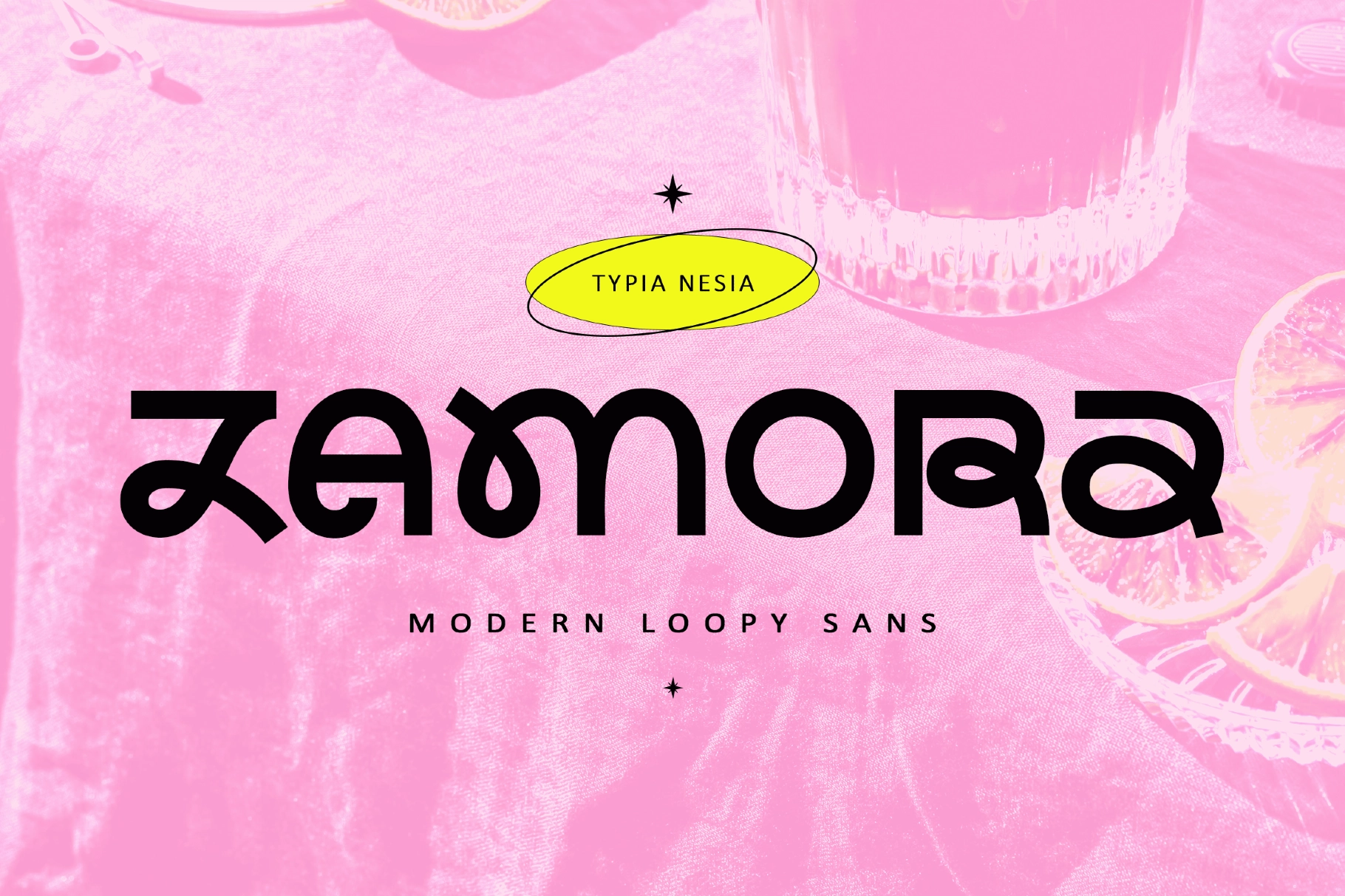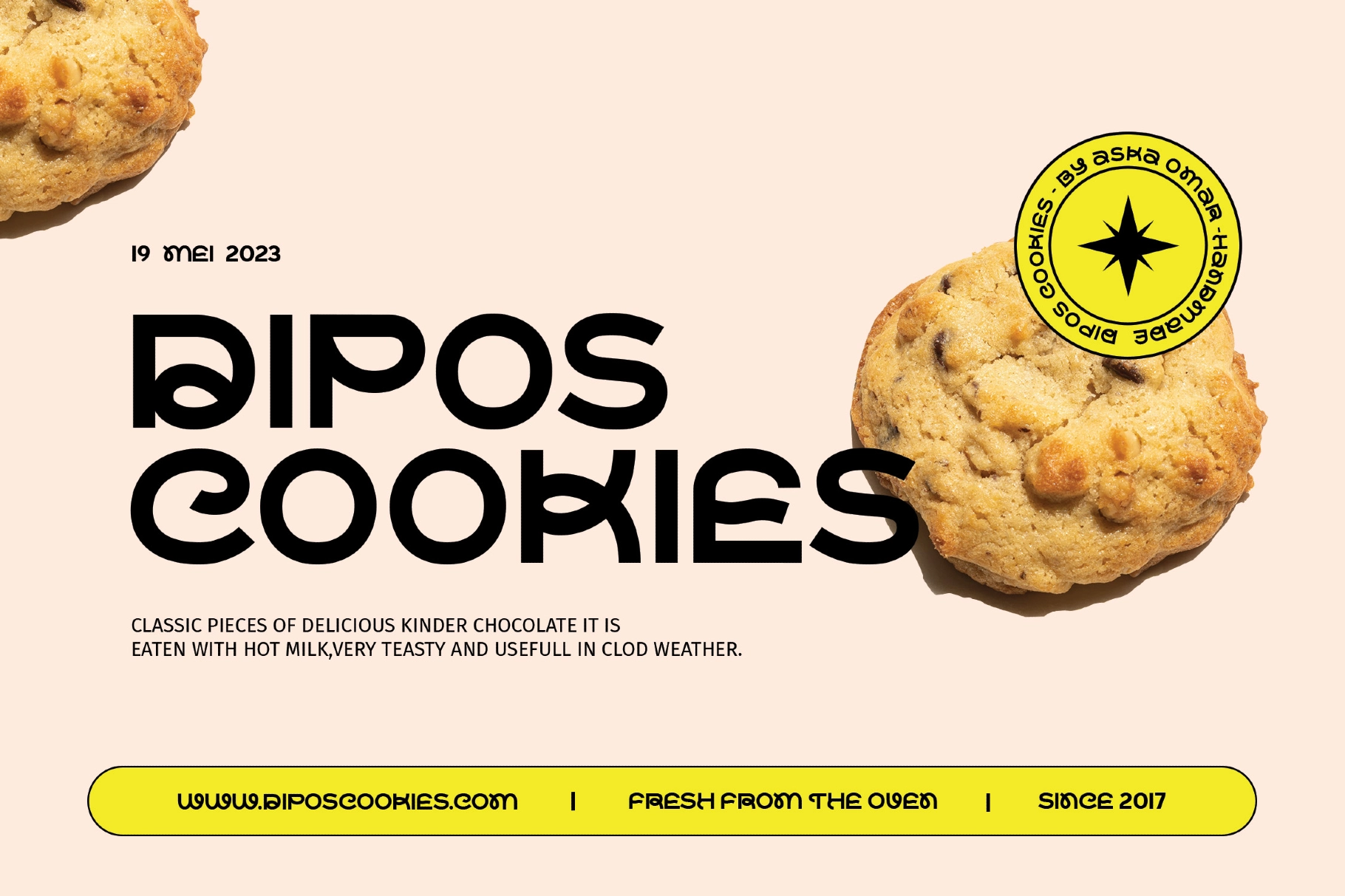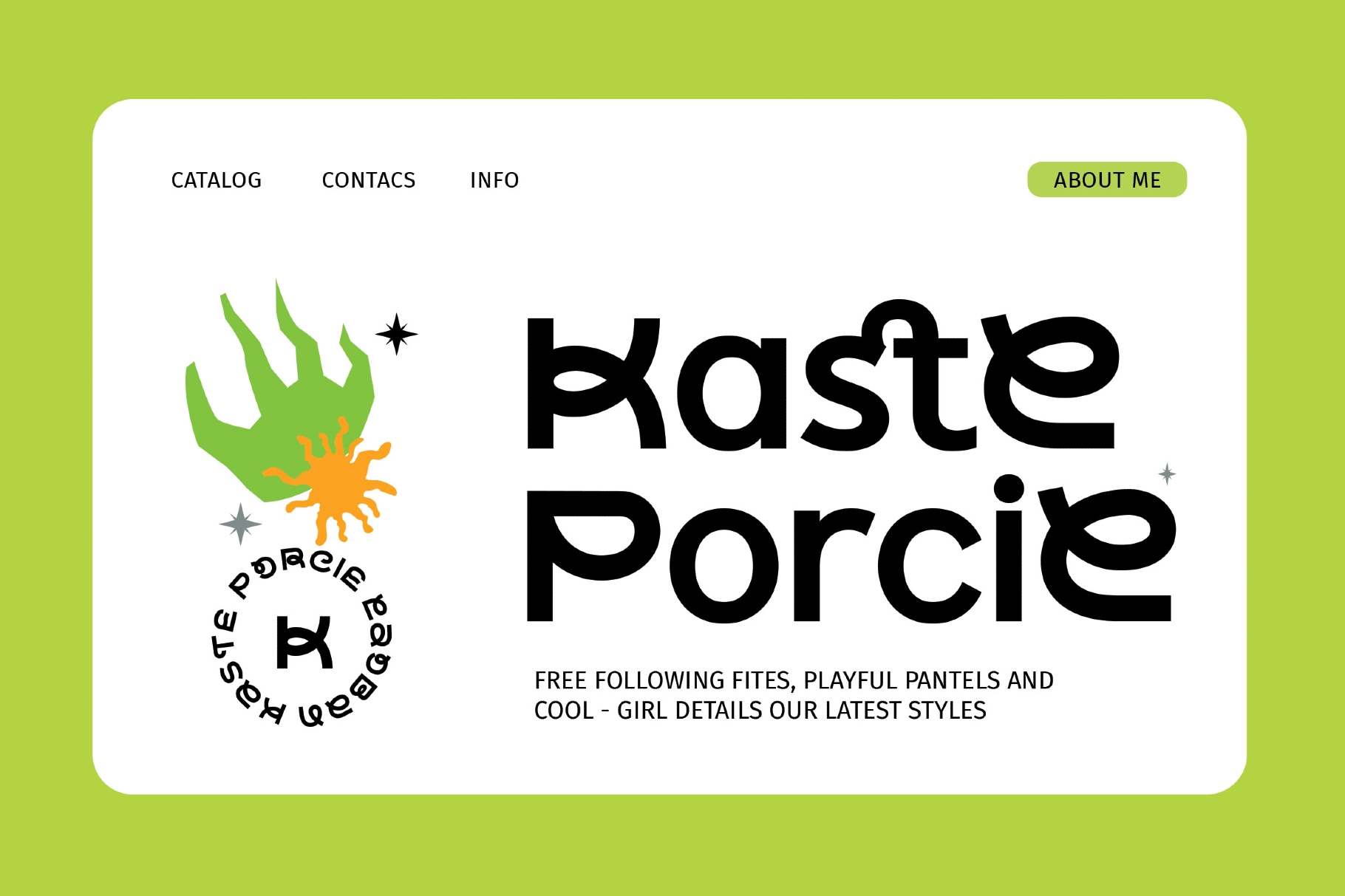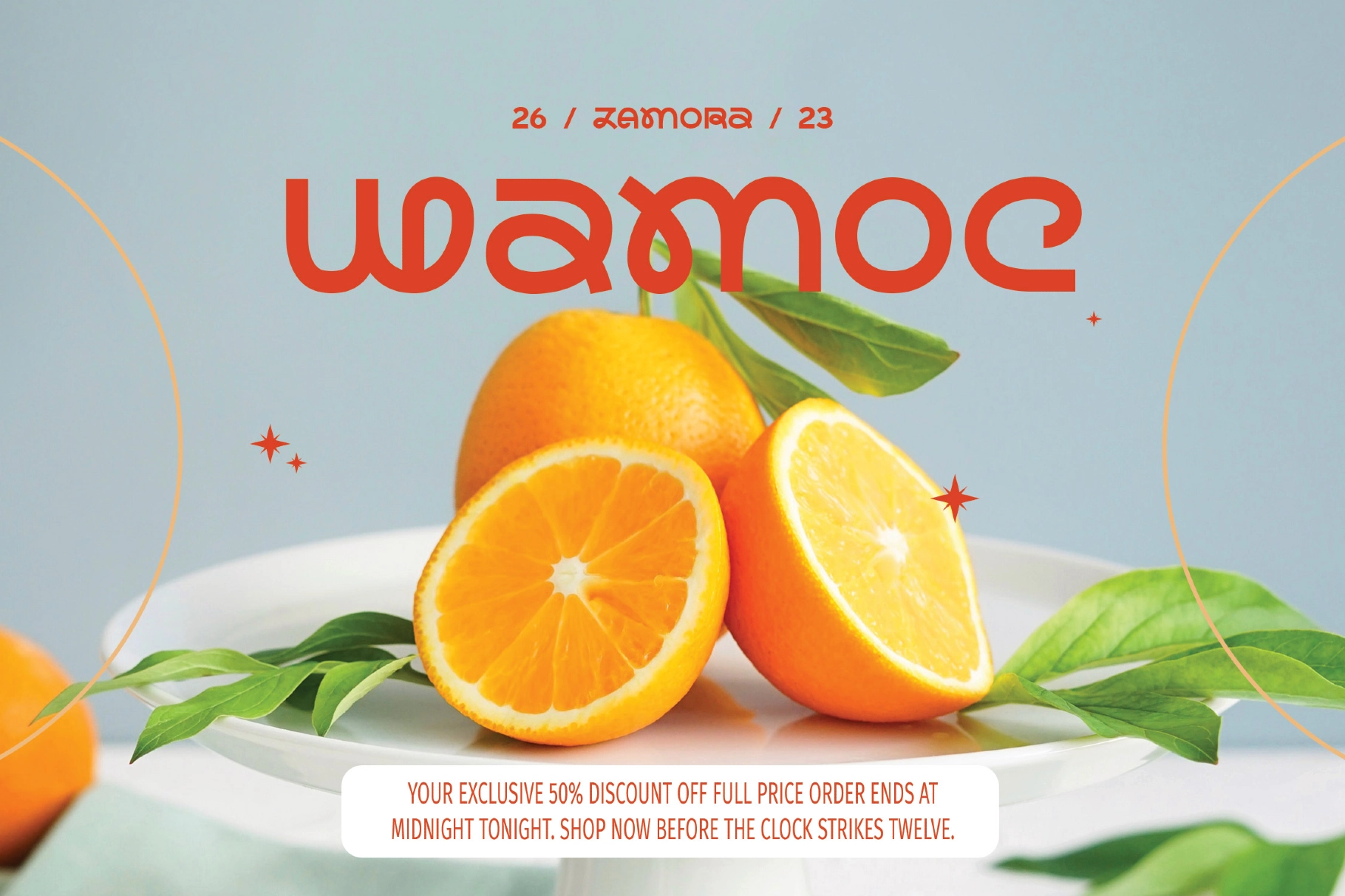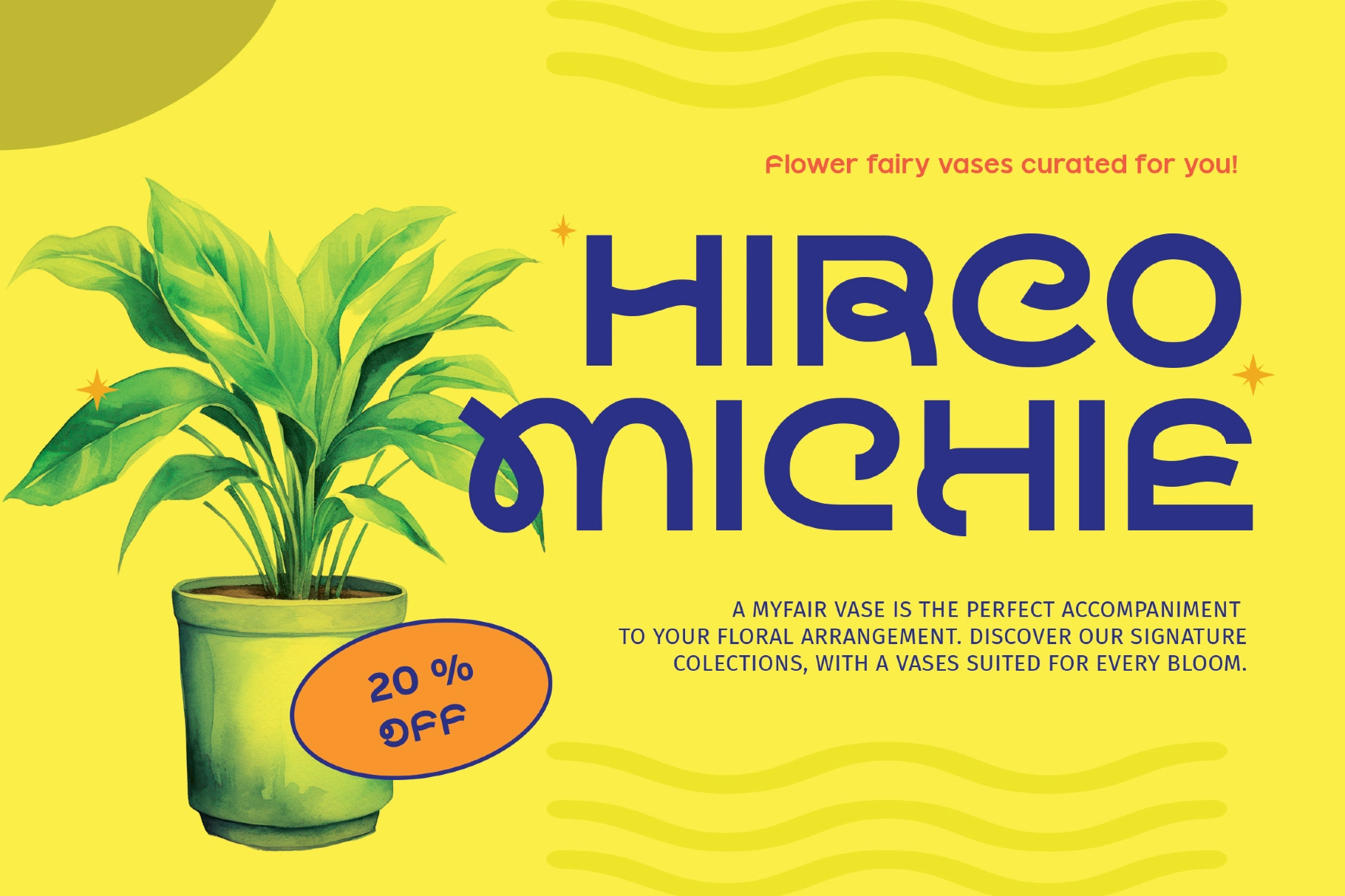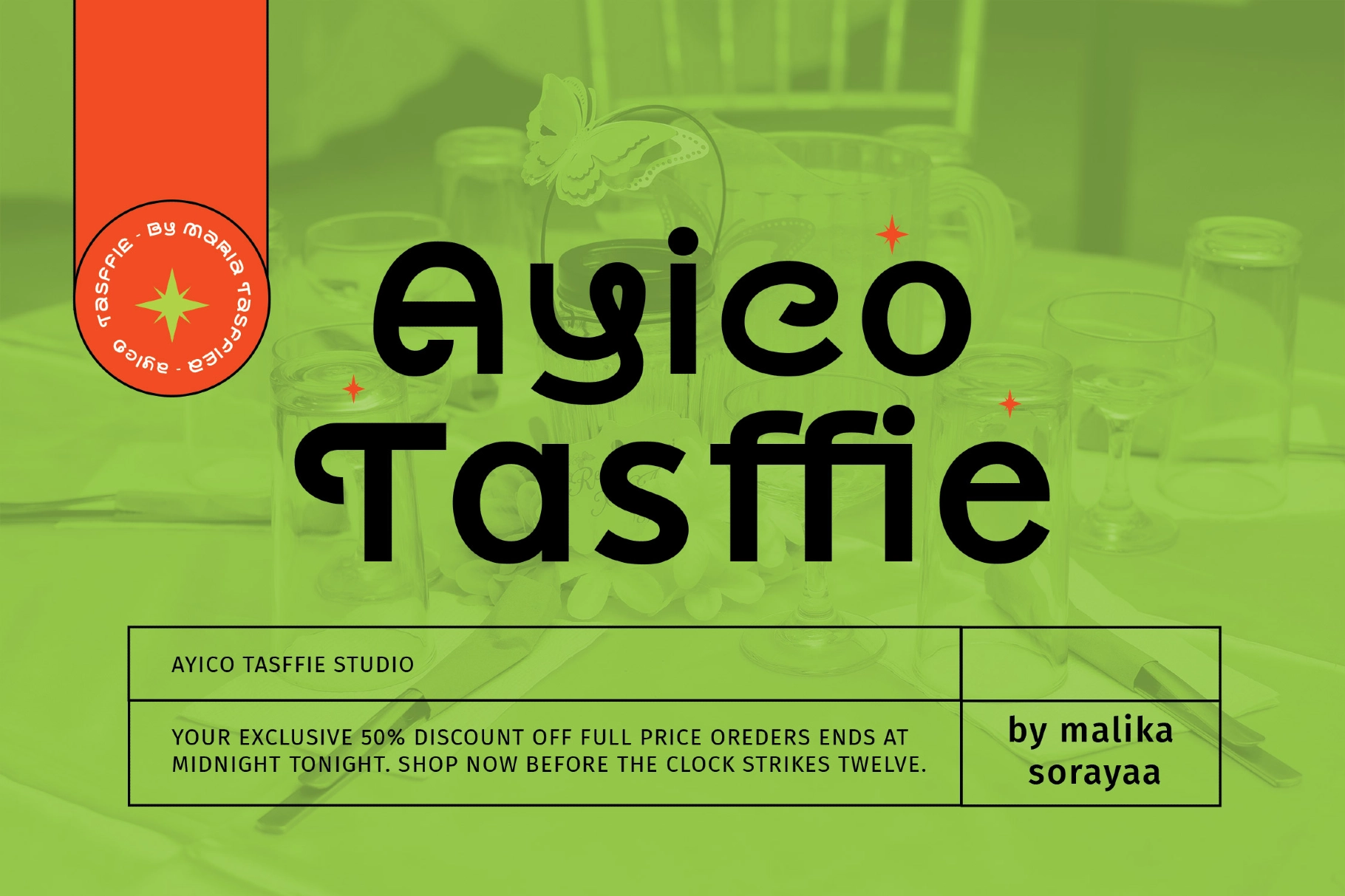
Zamora - Modern Bold Loopy Sans
Zamora
Zamora Sans is a modern, bold, and loopy display sans-serif font that brings a fresh and playful vibe to your designs. This font is perfect for various applications, including branding, logos, packaging, posters, and any project that requires a touch of modernity and creativity. Zamora Sans features clean lines with unique loops and curves, giving it a distinctive and eye-catching appearance. Its bold and expressive design allows it to stand out and make a statement in any design project. With its expertise in delivering a modern and playful typographic experience, Zamora Sans is an excellent choice for designers seeking to infuse their designs with a touch of creativity and innovation.